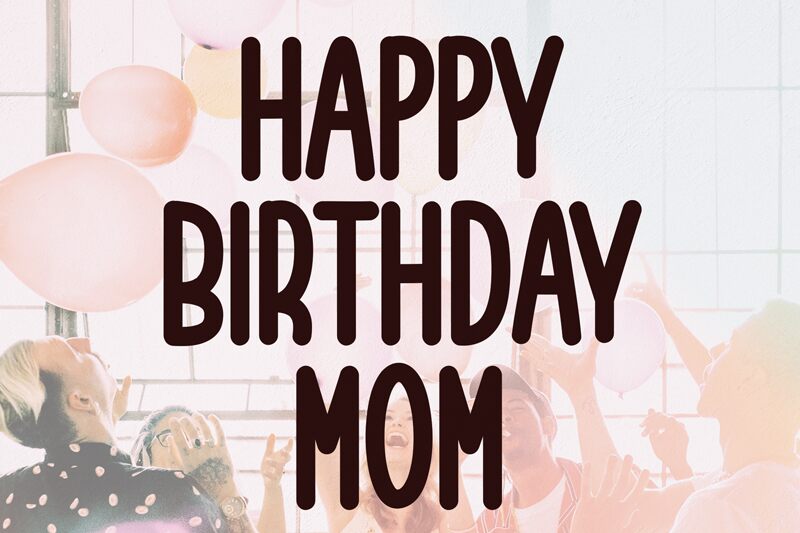
Happy Birthday Mom
Happy Birthday Mom is a charming handwritten font designed by scratchones. Its extra-condensed width makes it perfect for creative projects such as greeting cards, invitations, and posters. The lovely handwritten style adds a personal touch to any design, creating a warm and friendly atmosphere. This font is suitable for various themes ranging from birthday celebrations to mother's day events. Let Happy Birthday Mom express your heartfelt wishes and make your designs stand out with its unique character and style. Use it to bring joy and happiness to your next project!
the latest style letters are perfect for wall displays, wedding invitations, social media post logos, advertisements, product packaging, product designs, labels, photography, watermarks, invitations, stationery, and any project that requires taste handwriting.